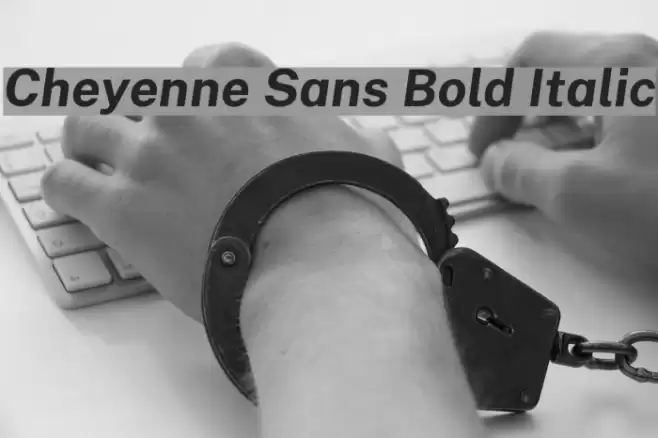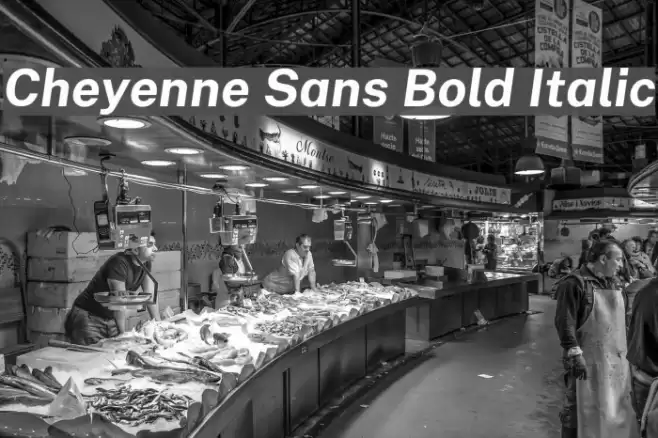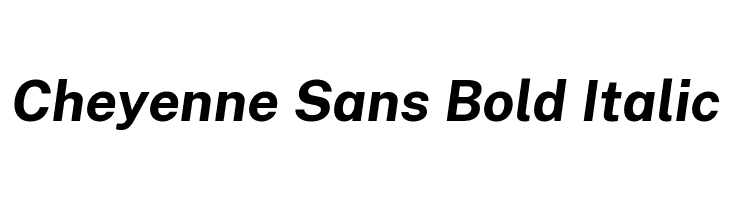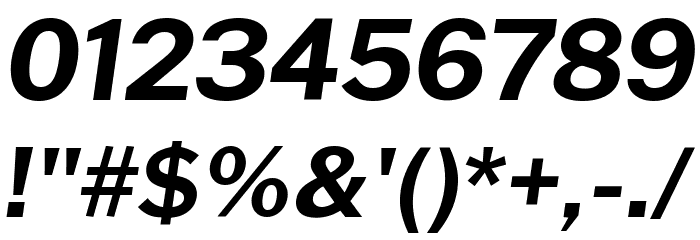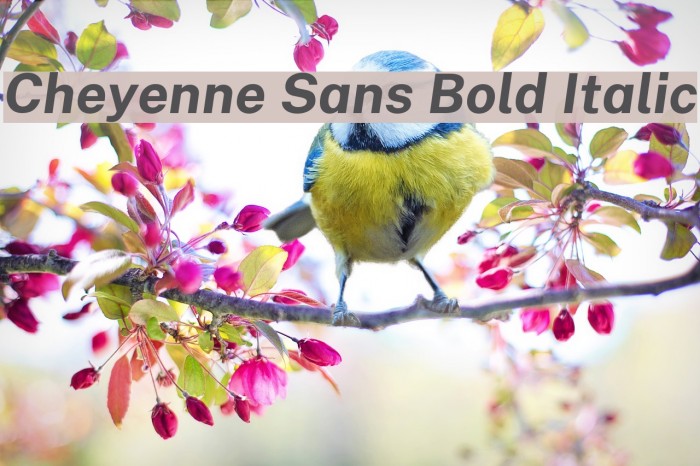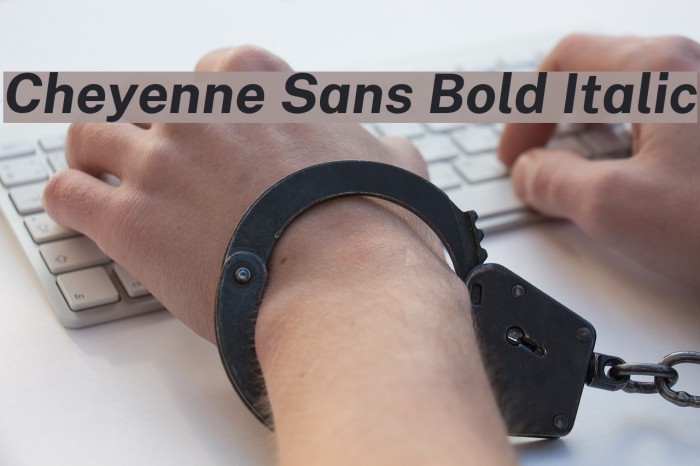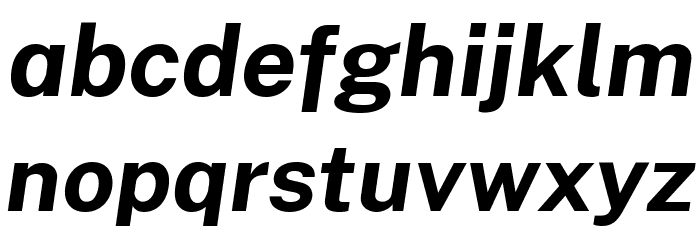
Cheyenne Sans Bold Italic Font
Cheyenne Sans Bold Italic Description
This font features a bold and italicized sans-serif style, characterized by clean lines and a modern aesthetic. The uppercase and lowercase letters are well-proportioned, with a slight slant that adds a dynamic feel. The numerals are clear and distinct, ensuring readability. Special characters are designed with the same boldness, maintaining consistency across the set. The overall appearance is sleek and professional, suitable for various design applications.
Bold, italic sans-serif font with a modern and dynamic style from Uncategorized fonts.
- Proposed Projects: Ideal for branding, advertising, headlines, and digital content where a strong, modern impression is desired.
- Use Case: Headlines, Logos, Branding